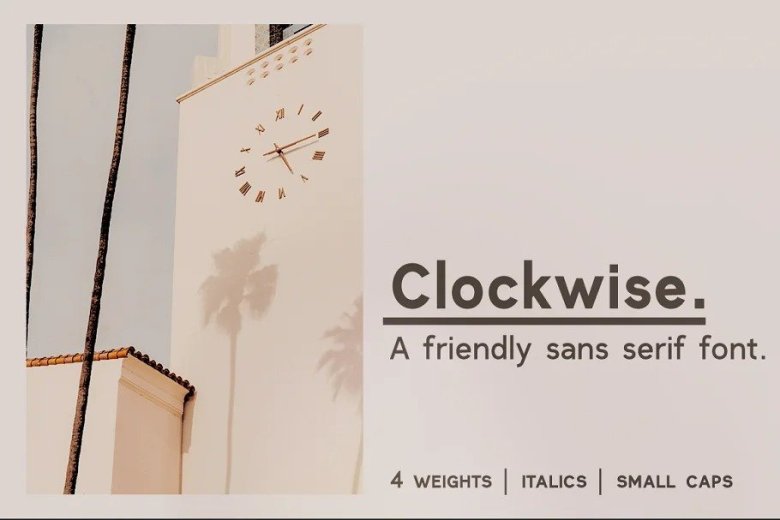
Clockwise Font
Clockwise Font designed to bring your branding to life and add a touch of modernity, fun and style. Clockwise is a friendly sans serif font with 4 weights and italics. This font is perfect for both texts and titles, and pairs beautifully with other fonts already in your library, especially handwritten and serif fonts. Use it in everything from logotypes to social media posts, website and magazine layouts to poster designs.